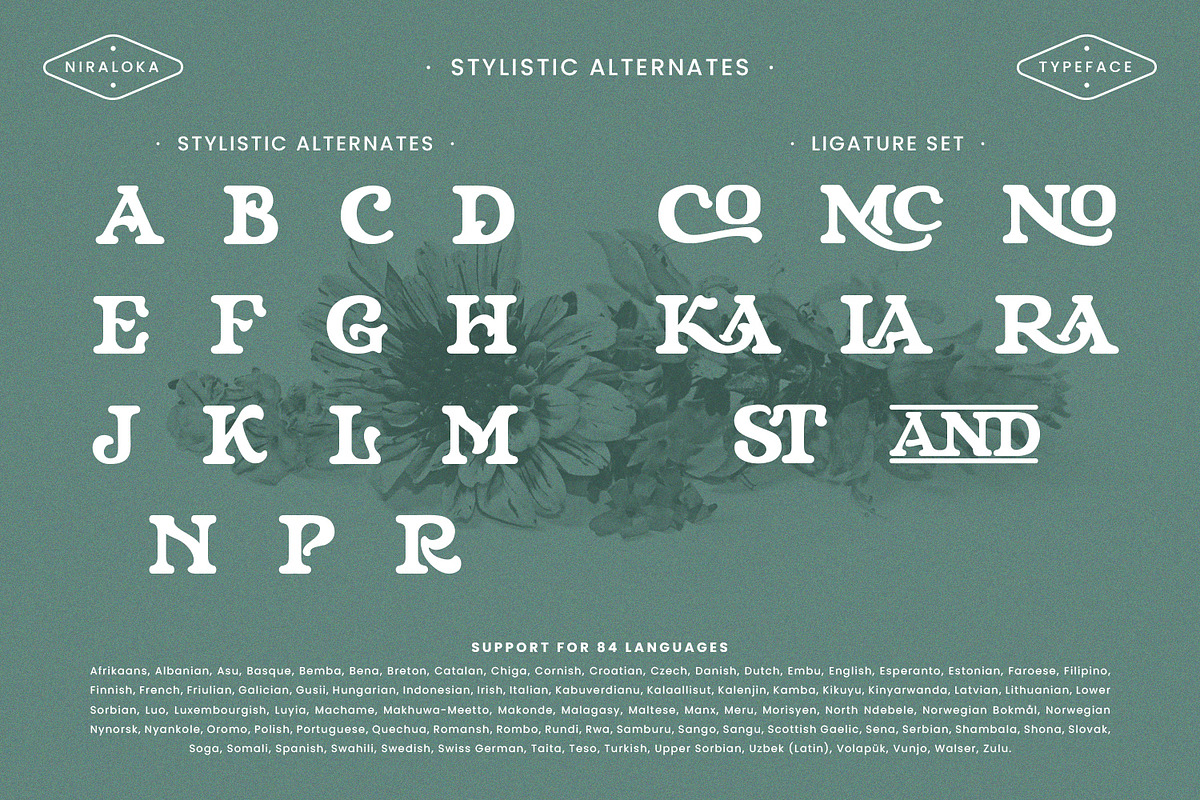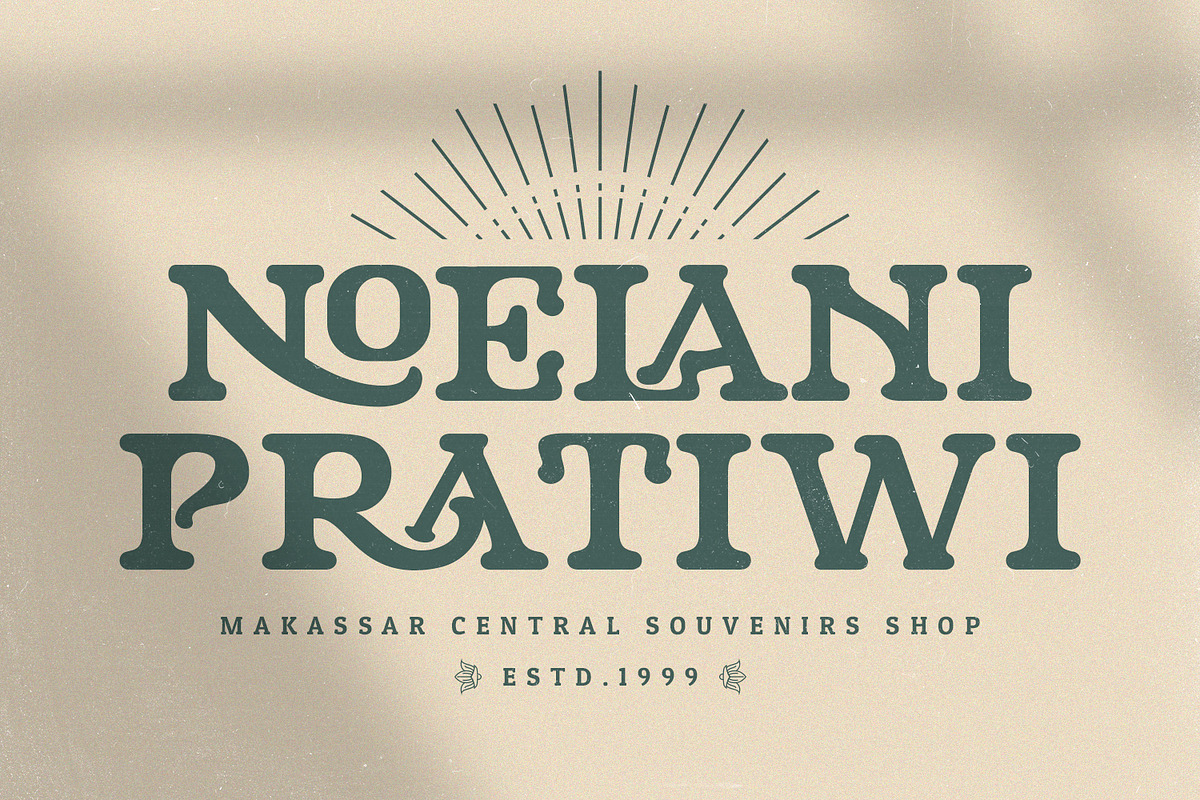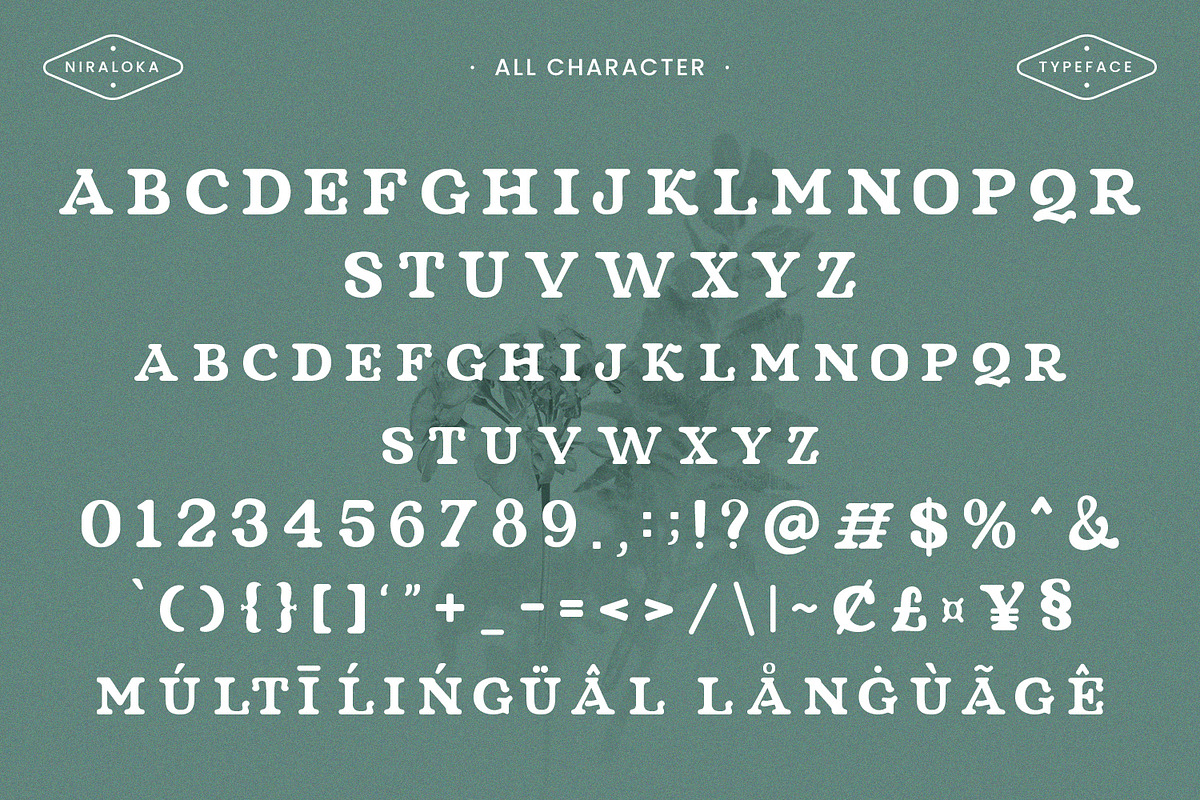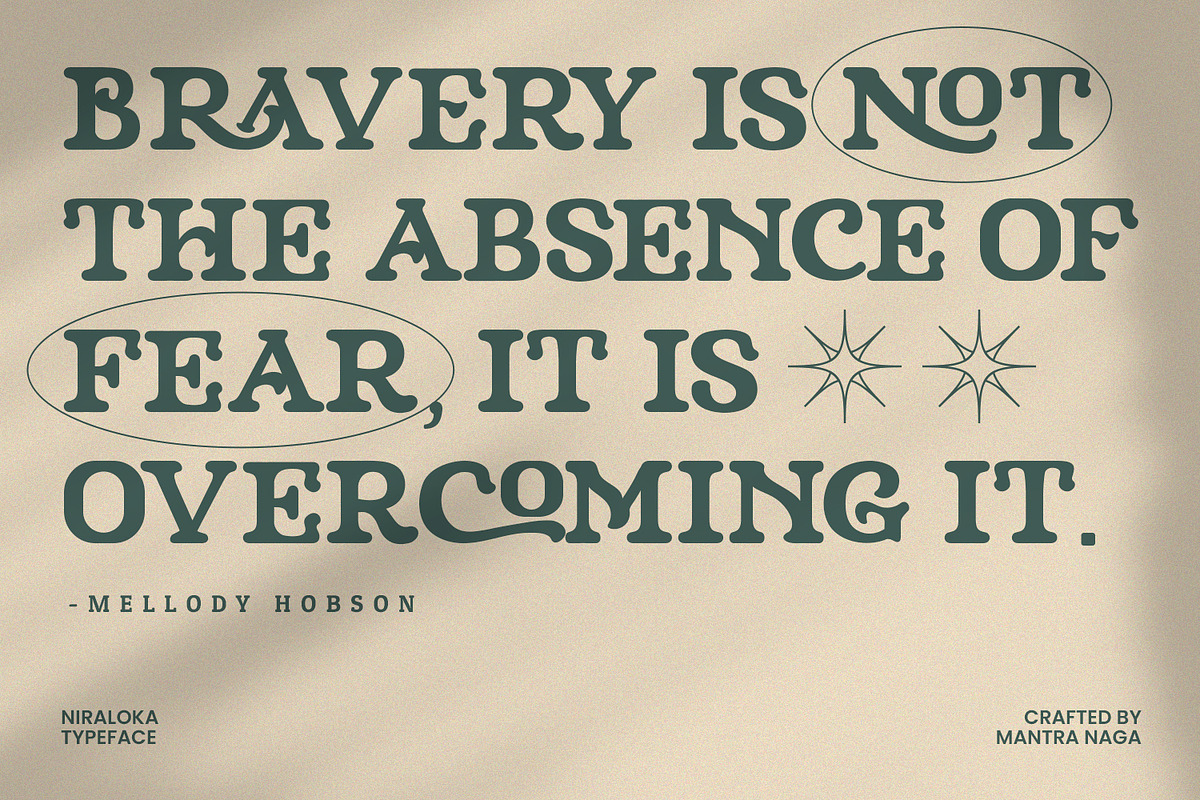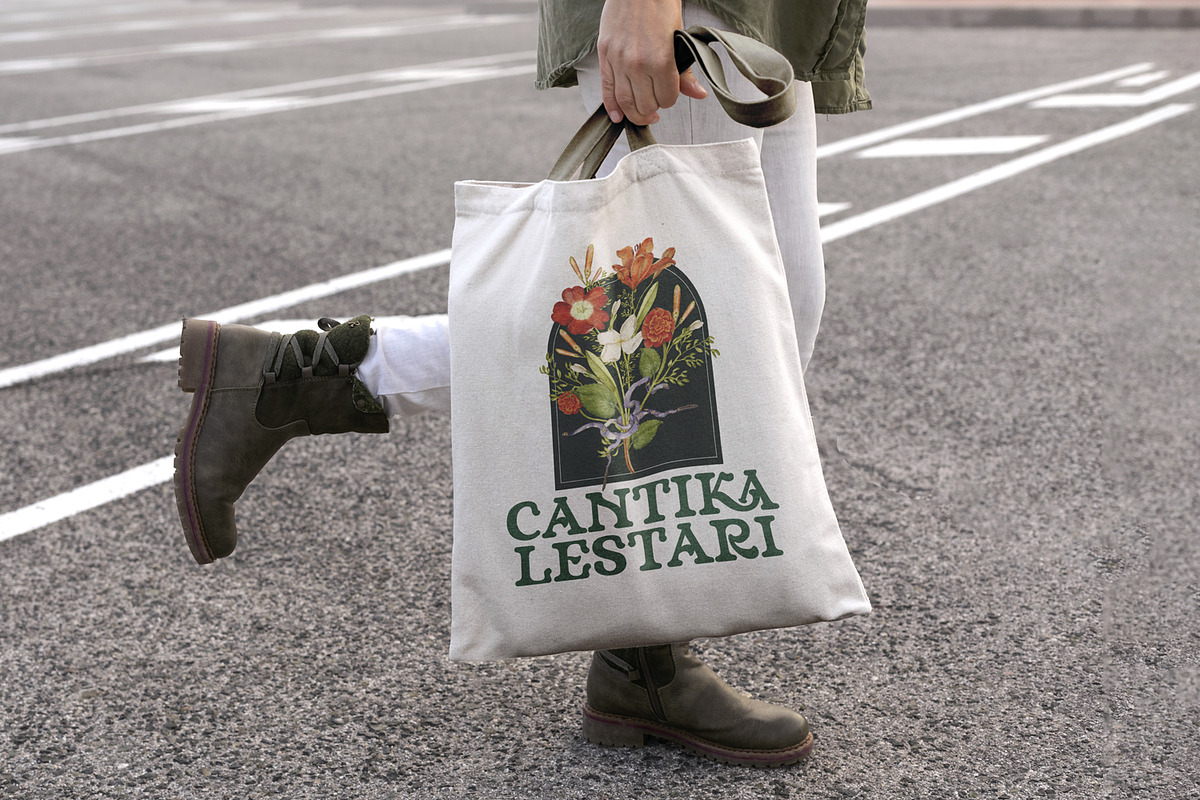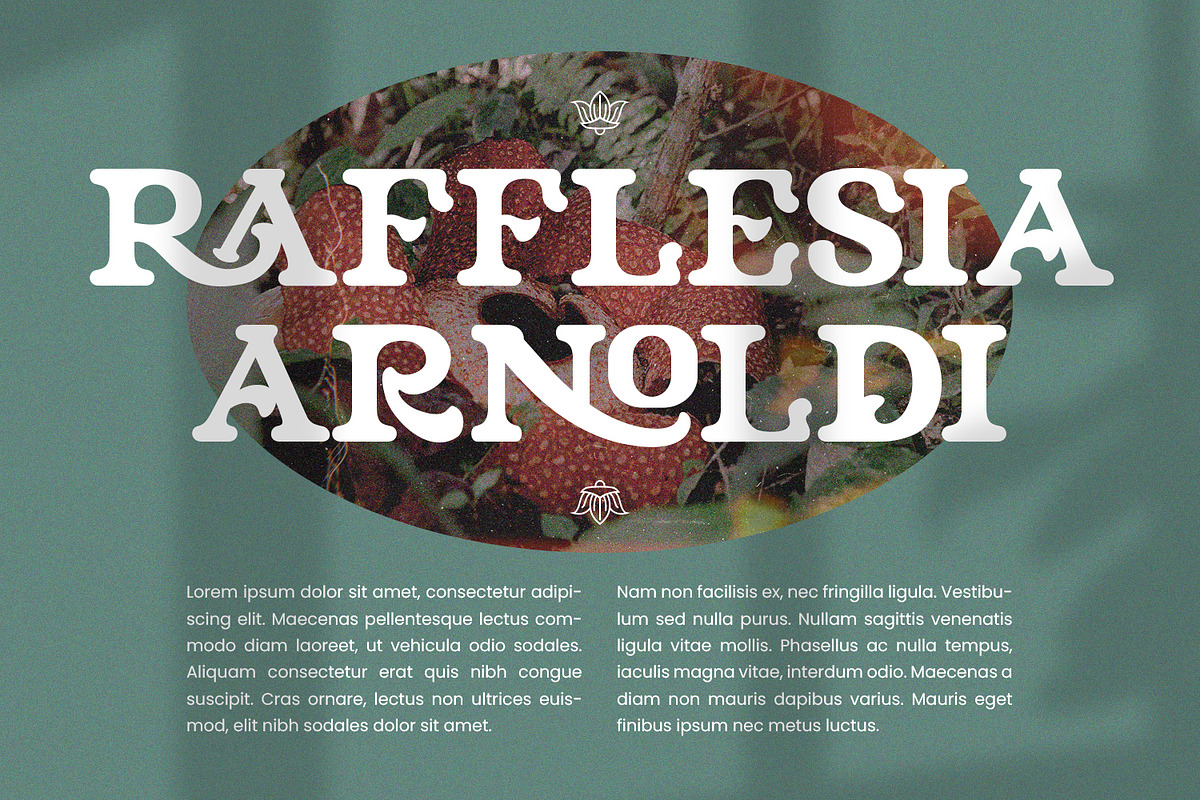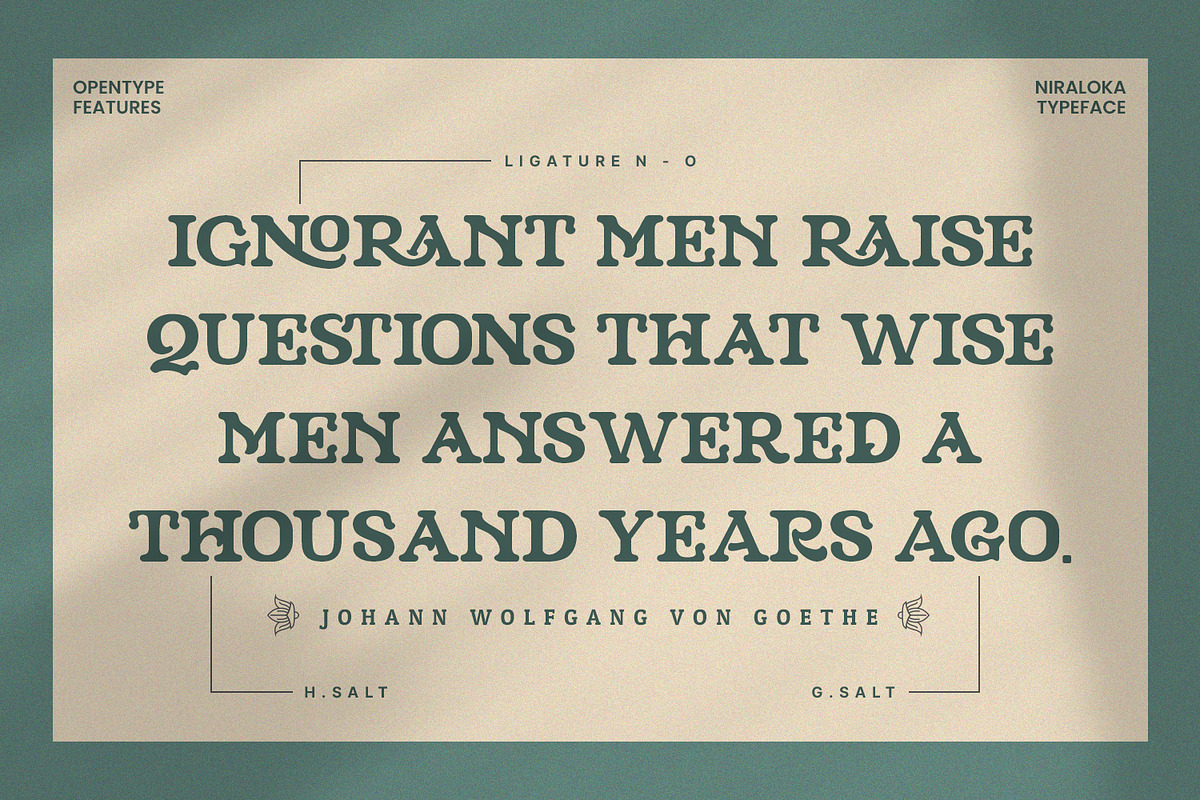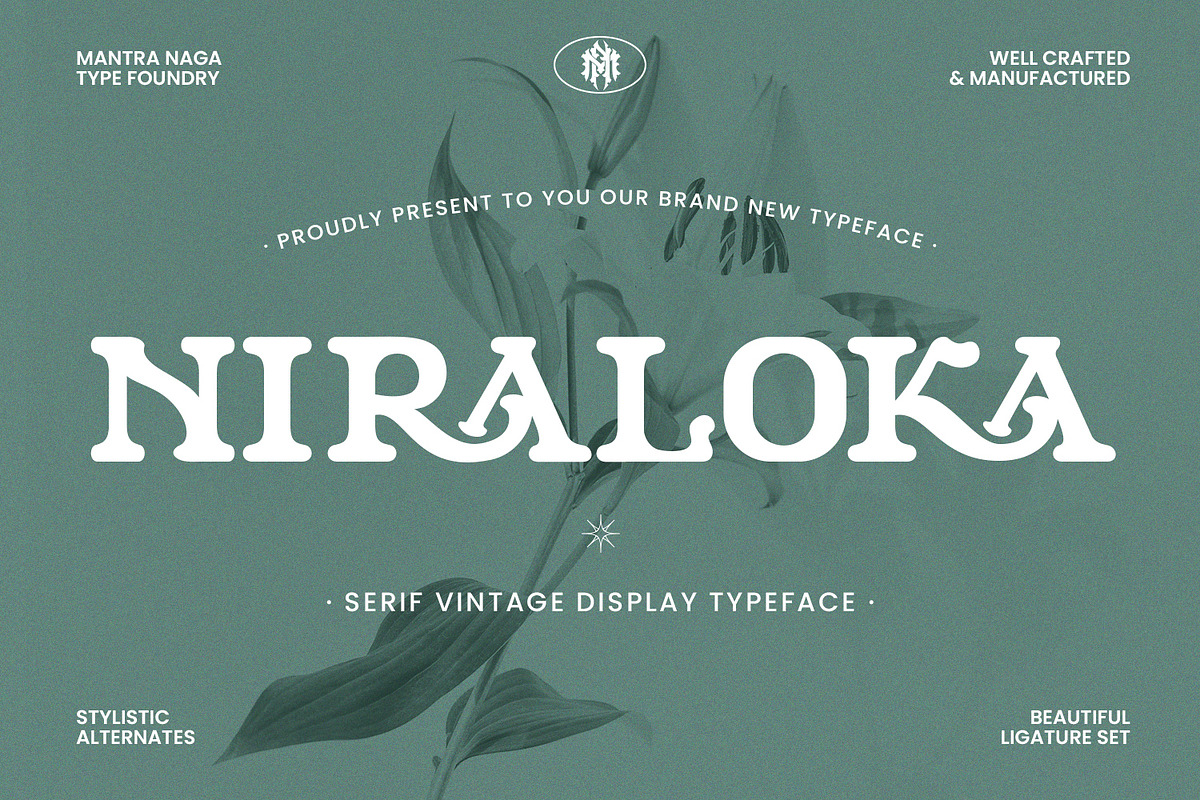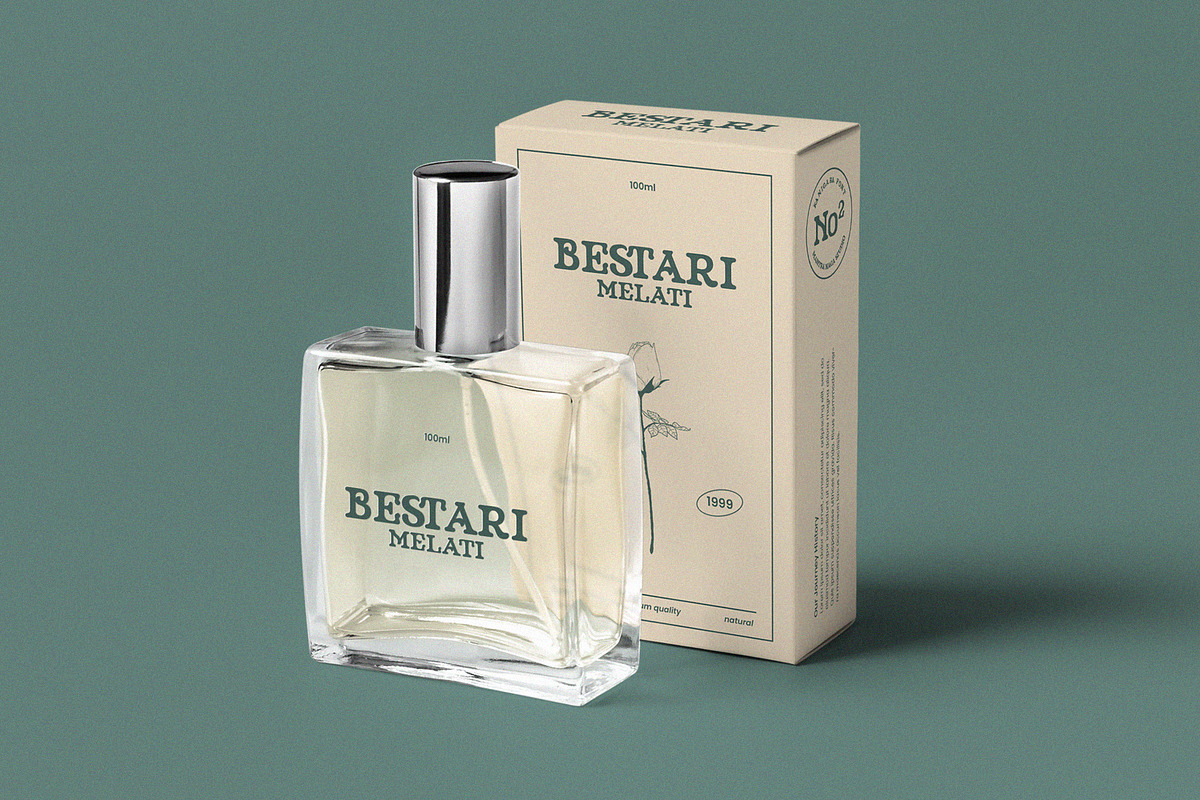
Niraloka - Serif Vintage Display
Introducing Niraloka – a Serif Vintage Display Typeface. This typeface has many alternatives with swashes that can make your lettering/logotype more attractive.
Feature:
- multilingual support
- ligature
- alternative
- swashes